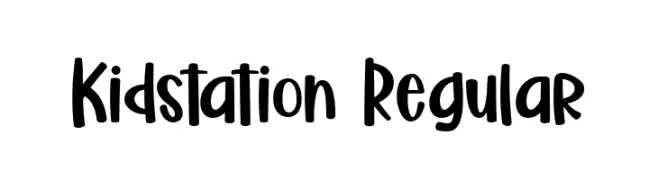
A bold, condensed font with a dripping, blood-like appearance, ideal for horror themes.
A bold, dripping font perfect for horror themes and Halloween designs.
A bold, graffiti-inspired font with a dynamic and urban style.
A playful, hand-drawn font with bold, rounded characters.
A playful, bold font with rounded, bubbly characters perfect for fun projects.
A bold, decorative font with a vintage marquee style.
A playful, handwritten font with rounded edges and a casual style.
A tech-inspired font with characters embedded in laptop icons, featuring bold, geometric shapes.
A jagged, distressed font perfect for spooky and mysterious themes.
A playful, bold font with a hand-drawn, whimsical style.